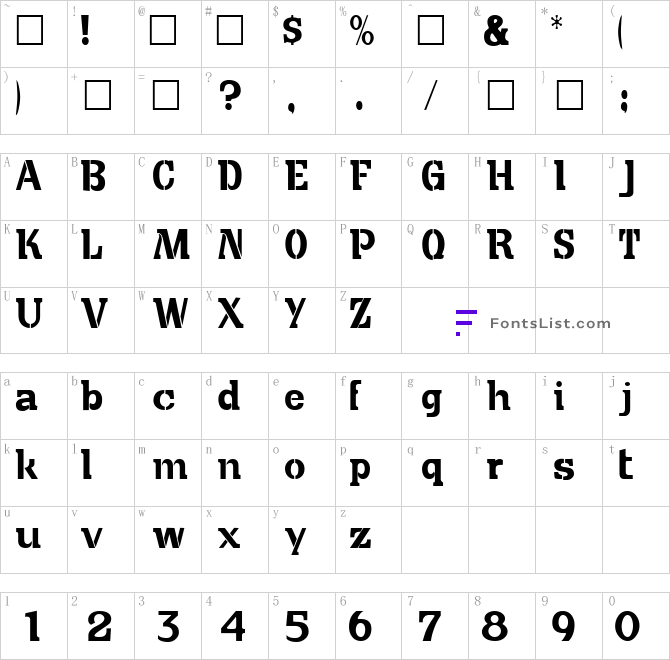
- Font Name:Acappella
Acappella-Regular.ttf is a very beautiful artistic font, Acappella-Regular.ttf is widely used in the design and printing of various books and pictures,Acappella-Regular.ttf has a strong visual impact,Acappella-Regular.ttf is a commonly used font in newspapers, magazines and books, and is used in posters, e-commerce Poster design, store design, logo design, font design and other fields.Acappella-Regular.